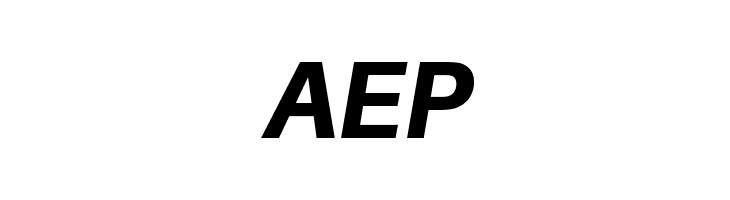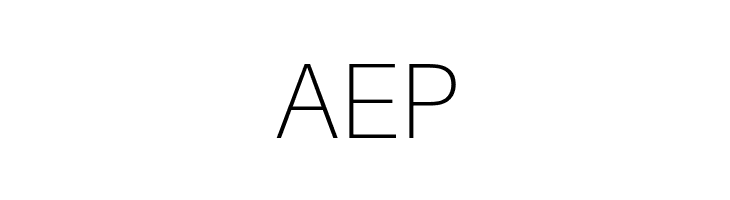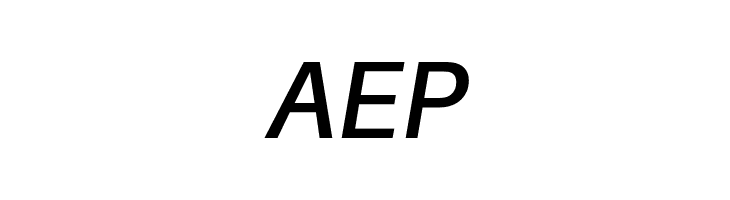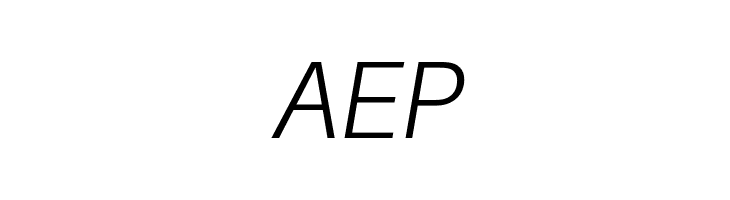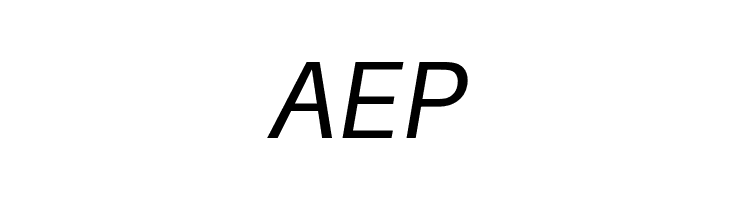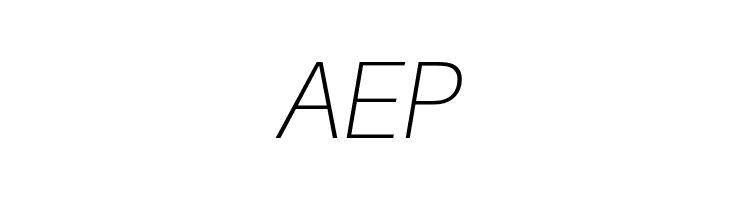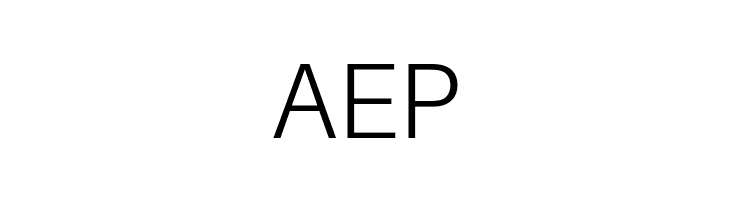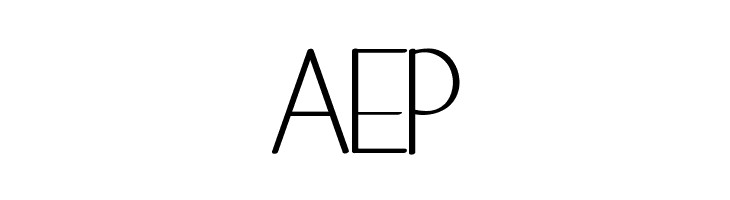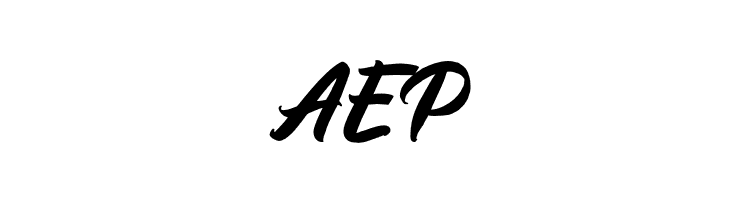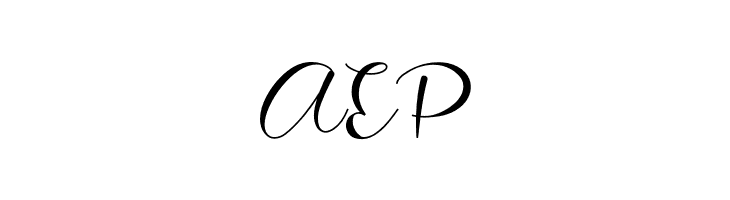
( Fonts by dot colon ) A bold, modern sans-serif font with excellent legibility and balanced proportions. Download 185 Downloads@WebFont
( Fonts by dot colon - Personal-use only. For commercial use please contact owner. ) A modern, bold, and italicized typeface with consistent stroke thickness. Download 1028 Downloads@WebFont
( Fonts by dot colon ) A bold, italic font with a modern and dynamic style. Download 120 Downloads@WebFont
( Fonts by dot colon - Personal-use only. For commercial use please contact owner. ) A bold, modern sans-serif font with a clean and geometric design. Download 10242 Downloads@WebFont
( Fonts by dot colon ) A bold, geometric sans-serif typeface with a modern and professional look. Download 114 Downloads@WebFont
( Fonts by dot colon ) A bold, italic typeface with a modern and dynamic style. Download 105 Downloads@WebFont
( Fonts by dot colon - Personal-use only. For commercial use please contact owner. ) A bold, italicized font with a modern and dynamic style. Download 712 Downloads@WebFont
( Fonts by dot colon - Personal-use only. For commercial use please contact owner. ) A sleek, modern italic font with clean lines and uniform stroke width. Download 101 Downloads@WebFont
( Fonts by dot colon ) A sleek, modern italic font with clean lines and excellent legibility. Download 165 Downloads@WebFont
( Fonts by dot colon - Personal-use only. For commercial use please contact owner. ) A clean, modern sans-serif font with uniform stroke widths and excellent readability. Download 1622 Downloads@WebFont
( Fonts by dot colon - Personal-use only. For commercial use please contact owner. ) A sleek, modern, and elegant italic typeface with a light weight. Download 103 Downloads@WebFont
( Fonts by dot colon ) A sleek, modern, and italicized font with thin strokes and a minimalist style. Download 74 Downloads@WebFont
( Fonts by dot colon - Personal-use only. For commercial use please contact owner. ) A clean, modern sans-serif font with a semi-bold weight and balanced proportions. Download 4065 Downloads@WebFont
( Fonts by dot colon ) A modern sans-serif font with a semi-bold weight, offering clarity and versatility. Download 124 Downloads@WebFont
( Fonts by dot colon - Personal-use only. For commercial use please contact owner. ) A modern, semi-bold, italic sans-serif font with clean lines and balanced proportions. Download 270 Downloads@WebFont
( Fonts by dot colon ) A sleek, semi-bold italic font with a modern and dynamic style. Download 131 Downloads@WebFont
( Fonts by dot colon - Personal-use only. For commercial use please contact owner. ) A modern, thin sans-serif font with a clean and minimalist design. Download 2427 Downloads@WebFont
( Fonts by dot colon - Personal-use only. For commercial use please contact owner. ) A sleek, modern, and italicized thin font with elegant strokes. Download 137 Downloads@WebFont
( Fonts by dot colon ) A sleek, thin, and italicized font with a modern and elegant design. Download 70 Downloads@WebFont
( Fonts by dot colon - Personal-use only. For commercial use please contact owner. ) A modern, ultra-light sans-serif font with clean lines and balanced spacing. Download 535 Downloads@WebFont
( Fonts by dot colon - Personal-use only. For commercial use please contact owner. ) A sleek, ultra-light italic font with a modern and elegant style. Download 90 Downloads@WebFont
( Fonts by a Adilson Gonzales de Oliveira Junior - www.agonz.com.br. Personal-use only. For commercial use please contact owner. OFF SITE ) A modern, geometric font with a tall and narrow design. Download 0 Downloads
( Fonts by Minetype Studio - Personal-use only. For commercial use please contact owner. ) A bold, expressive script font with a modern, cursive style. Download 67 Downloads@WebFont
( Fonts by Letterena Studios ) A cursive, handwritten font with elegant, flowing strokes. Download 107 Downloads@WebFont
( Fonts by Edric Studio - Personal-use only. For commercial use please contact owner. ) A modern, elegant font with tall, narrow letterforms and clean lines. Download 86 Downloads@WebFont
( Fonts by Md Shohail Bhuian - Personal-use only. For commercial use please contact owner. ) A playful, handwritten font with a modern and dynamic style. Download 51 Downloads@WebFont
( Fonts by FHFont - Ferry Hadriyan - Personal-use only. For commercial use please contact owner. ) A bold, flowing script font with elegant, cursive letterforms. Download 130 Downloads@WebFont
( Fonts by fontpremium ) Elegant, flowing script font with a handwritten style. Download 72 Downloads@WebFont
( Fonts by NanaNissa - Personal-use only. For commercial use please contact owner. ) A graceful and elegant cursive font with flowing, intricate details. Download 34 Downloads@WebFont
( Fonts by Scratchones ) An elegant script font with flowing, interconnected letters and a sophisticated style. Download 244 Downloads@WebFont